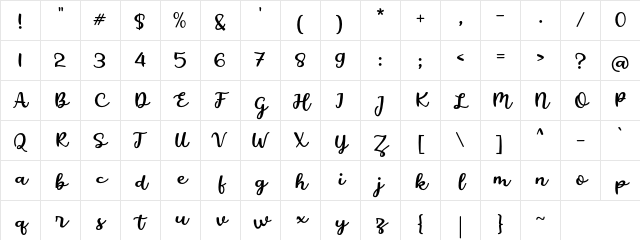
Complete a Amazing Mother Regular glyph index. Displaying only characters natively supported by a Amazing Mother Regular font.
a Amazing Mother is a composed and adaptable typeface that performs quietly and consistently across a wide range of design contexts.